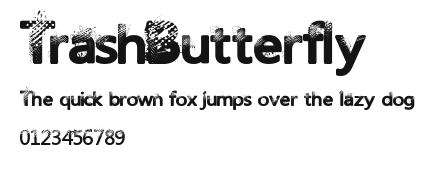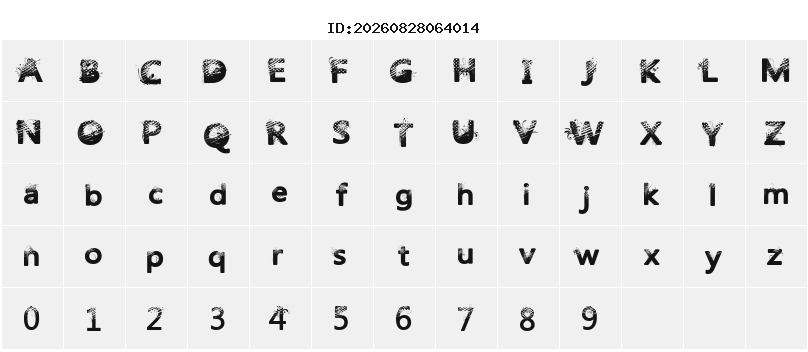
TrashButterfly Preview
• Font Name: TrashButterfly
About TrashButterfly.ttf
TrashButterfly.ttf is a modern, elegant sans-serif font designed for ultimate readability and visual harmony. Perfect for branding, headlines, web design, and print materials.